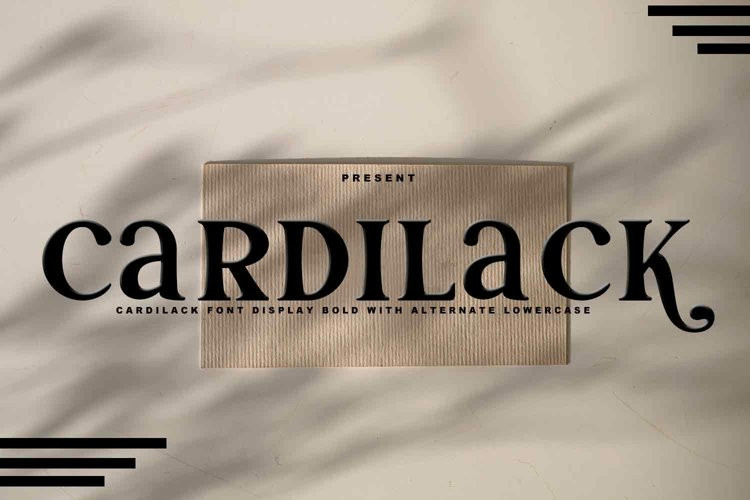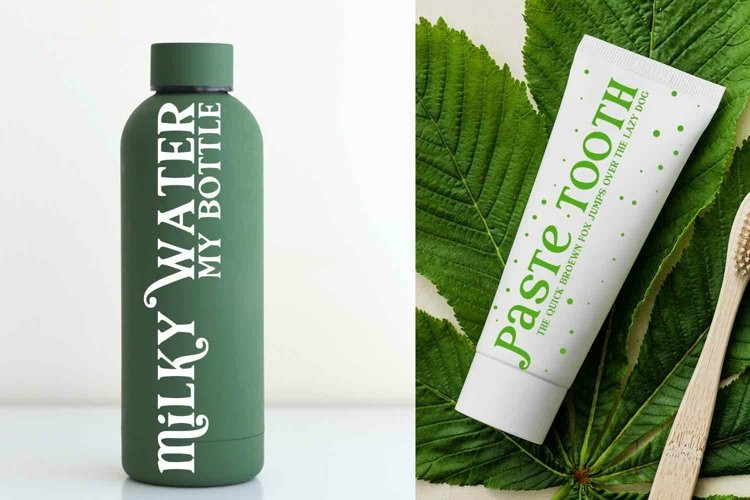
Cardilack Font
Cardilack FontCardiack is a slap serif-themed font display with a unique and attractive shape with the addition of beautiful curves to this font giving a new additional impression that makes it more special, of course, there are many things you can use and do using this font.